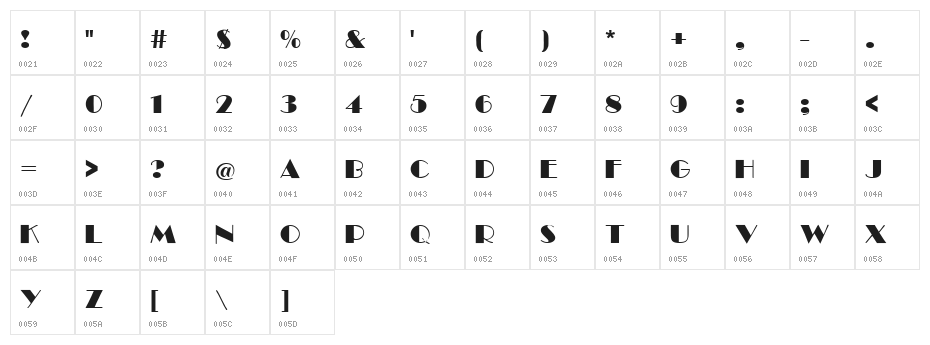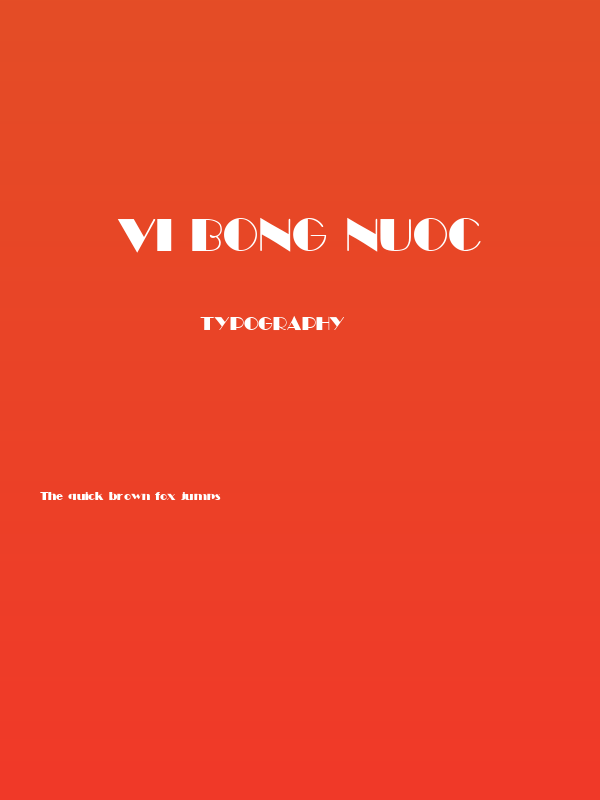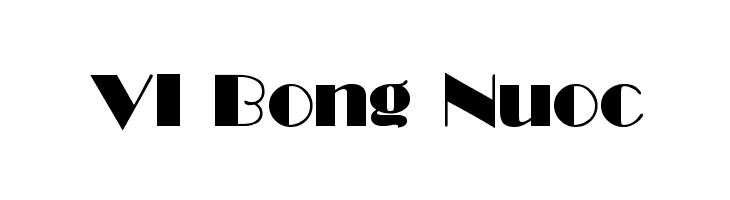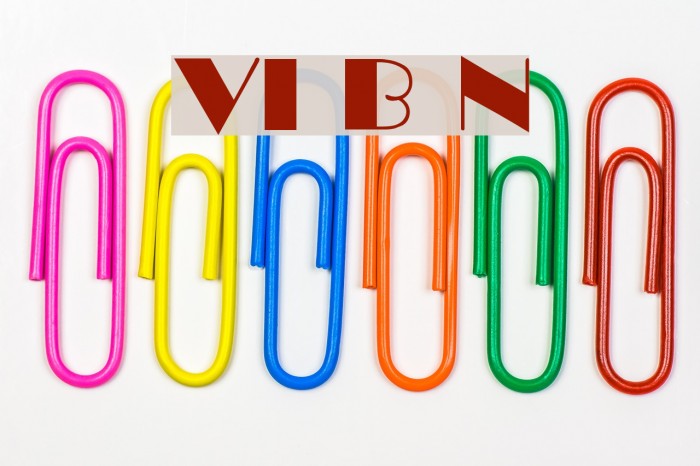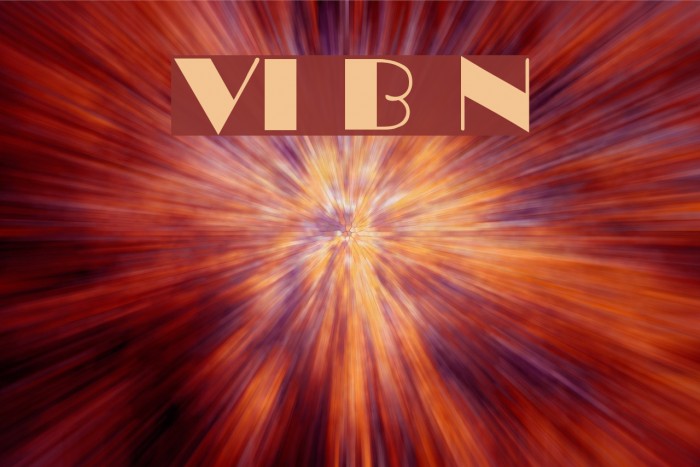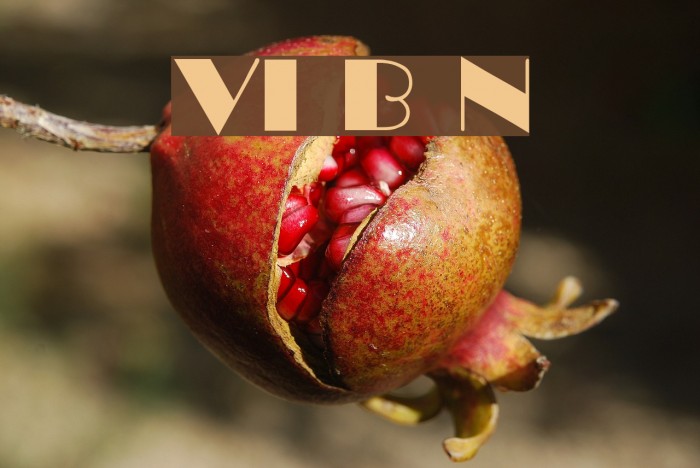
VI Bong Nuoc Font
VI Bong Nuoc Description
This font features a bold and striking design with high contrast between thick and thin strokes. The uppercase letters exhibit a geometric and angular style, while the lowercase letters maintain a more rounded and softer appearance. The numbers are consistent with the bold style, ensuring readability and impact. Special characters are uniquely styled, adding a decorative touch. Overall, the font combines modern aesthetics with a hint of retro flair, making it versatile for various design needs.
| Proposed Projects | Ideal for branding, poster design, headlines, and any project requiring a strong visual impact. |